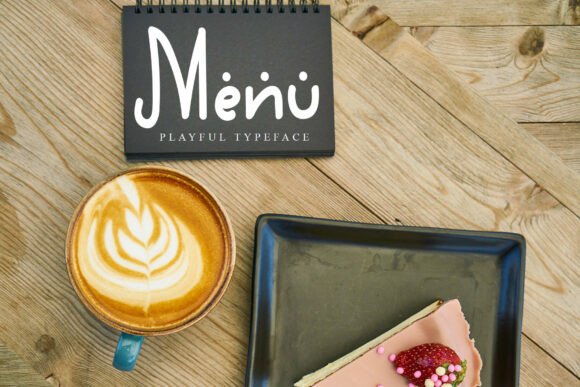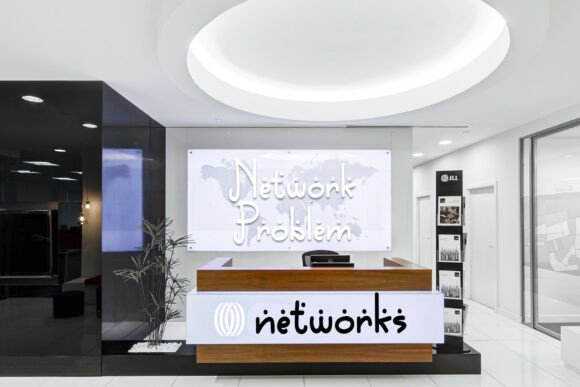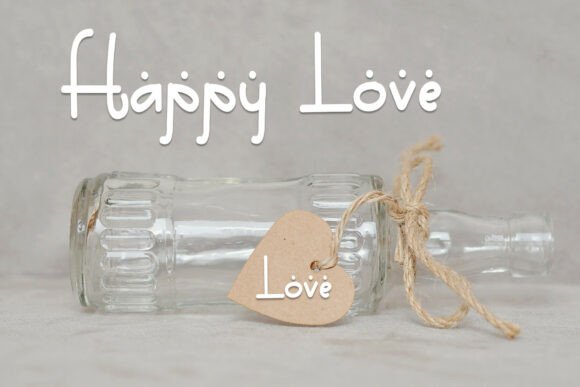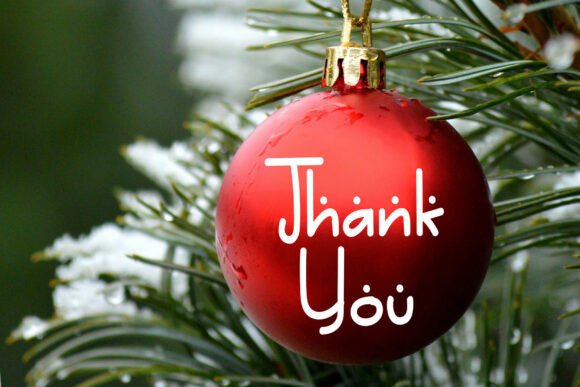
Introducing Duck Font: Elevate Your Designs with Elegance and Sophistication
Are you searching for a font that adds a touch of uniqueness and elegance to your projects? Look no further than Duck Font, a beautifully crafted typeface designed to meet your creative needs. With its professional hand touch, Duck Font is perfect for a wide range of applications, from wedding invitations and birthday cards to school assignments and other important events.
What Makes Duck Font Special?
Duck Font is not just another font; it’s a carefully crafted typeface made with attention to detail and a focus on aesthetics. Its unique design ensures that your projects stand out from the crowd, adding a touch of sophistication and elegance. Whether you’re a designer, crafter, or simply someone who loves to get creative, Duck Font is an excellent choice for anyone looking to elevate their work.
Perfect for Various Projects
Duck Font is incredibly versatile, making it suitable for a wide range of projects. Here are some ideas to get you started:
- Wedding Invitations: Make your wedding invitations truly special with Duck Font. Its elegant design sets the tone for a beautiful and memorable occasion.
- Birthday Cards: Create personalized birthday cards that stand out with Duck Font. Its unique touch adds a special something to your celebrations.
- School Assignments: Give your school assignments a professional edge with Duck Font. Its sophisticated design is sure to impress teachers and peers alike.
- Parties and Events: From baby showers to graduation parties, Duck Font is perfect for creating eye-catching invitations and decorations.
Why Choose Duck Font?
There are many reasons why Duck Font should be your go-to choice for your creative projects:
- Professional Design: Duck Font is designed with a professional hand touch, ensuring that your projects look polished and sophisticated.
- Elegant Aesthetic: Its elegant design makes it perfect for projects that require a touch of class and sophistication.
- Versatility: Duck Font can be used for a wide range of projects, from formal events to creative assignments.
Tips for Using Duck Font
To get the most out of Duck Font, here are some tips to keep in mind:
- Experiment with Sizes: Play around with different font sizes to find the perfect balance for your project.
- Combine with Other Fonts: Don’t be afraid to pair Duck Font with other fonts to create a unique and visually appealing design.
- Use it for Headings and Titles: Duck Font is perfect for headings and titles, adding a touch of elegance and sophistication to your project.